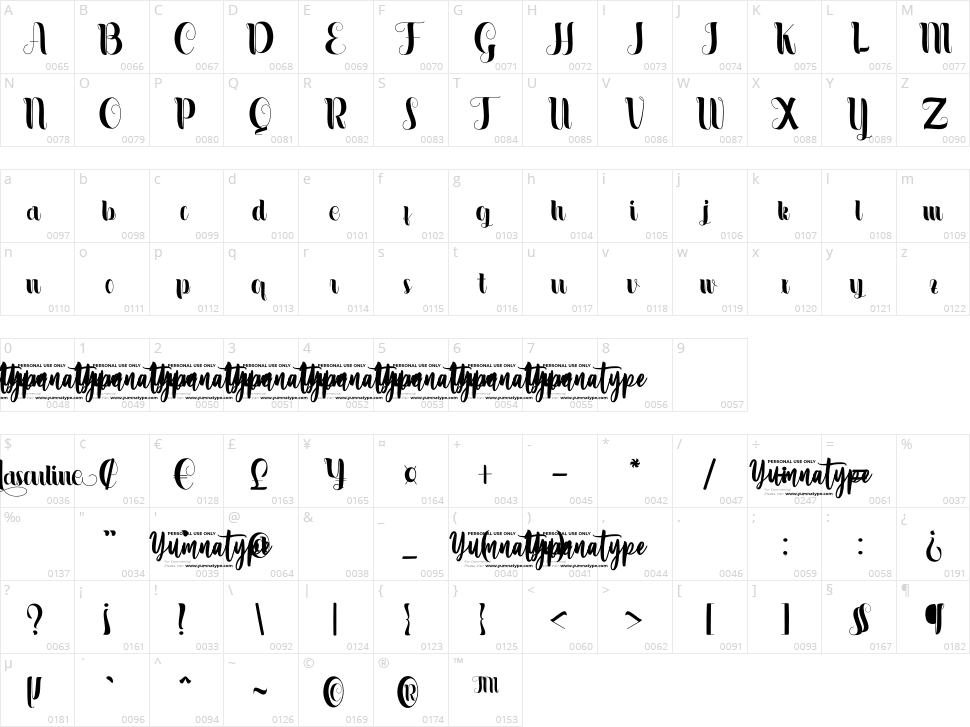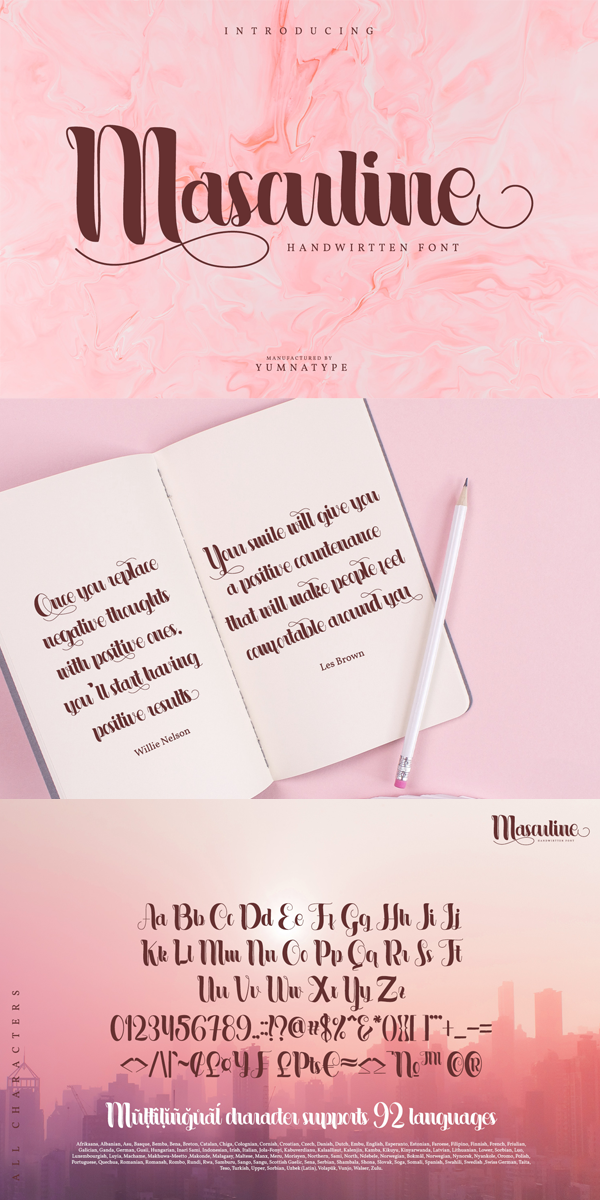
Masculine is a beautiful handwritten font. Made for any professional project branding. It is the best for logos,
branding and quotes. Every letter has a unique and beautiful touch.
Masculine is a beautiful handwritten font. Made for any professional project branding. It is the best for logos,
branding and quotes. Every letter has a unique and beautiful touch.